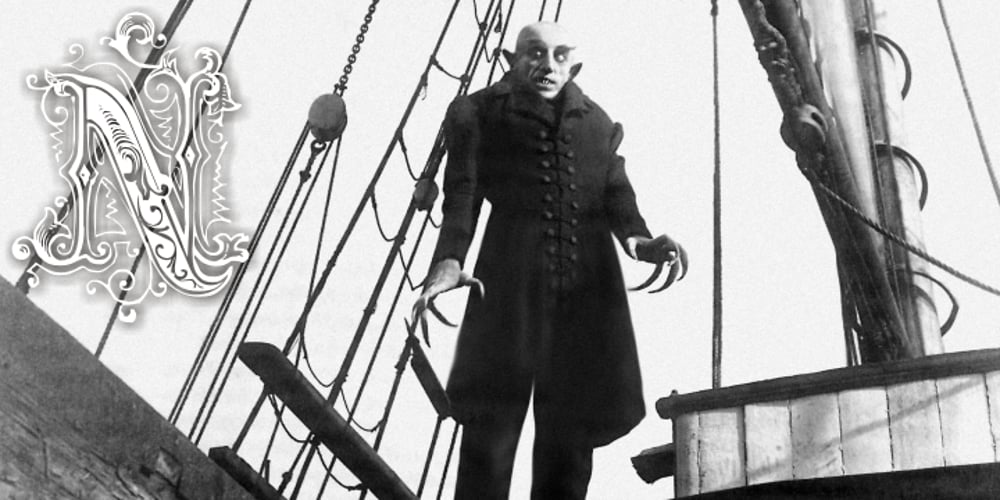
Vampirevich Font Family was designed by Paulo W and published by Intellecta Design. Vampirevich contains 1 styles and family package options. A mix and mash of various different decorative letter designs. Very diverse and great for header designs.